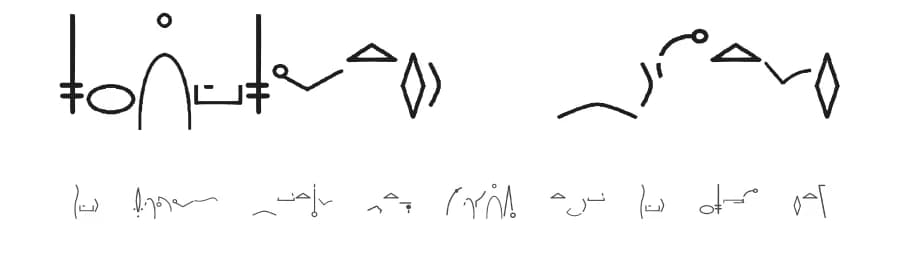
About Alphacode Beyond Font
AlphaCode BEYOND is a simple substitute cipher. You can use this font/cipher to write a book with or anything. Free for Commercial Use. Make money with it, if you want. Other font creators can take and perfect it if they wish to and even sell it on their websites, before or after they've perfected it. Have fun! You can even make your own font with this font by mixing up the letters to make a different cipher! If you learn this, you could become fluent in reading it. Write a journal with it - will your friends know what you've written?! AlphaCode BEYOND: Another way to communicate.
| Designer | Shelley A Evans |
Alphacode Beyond Font